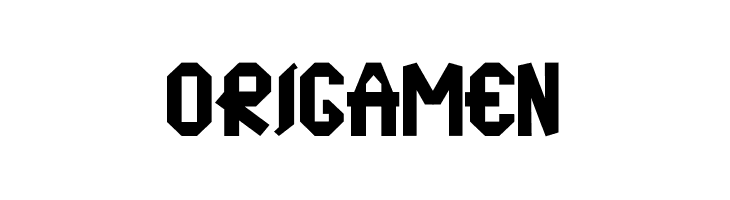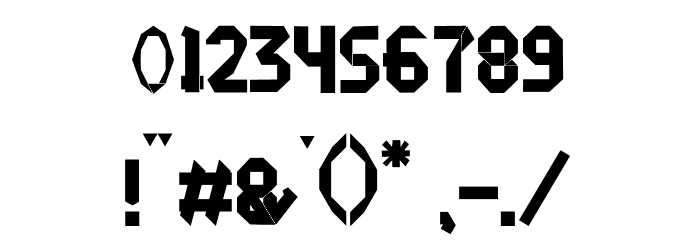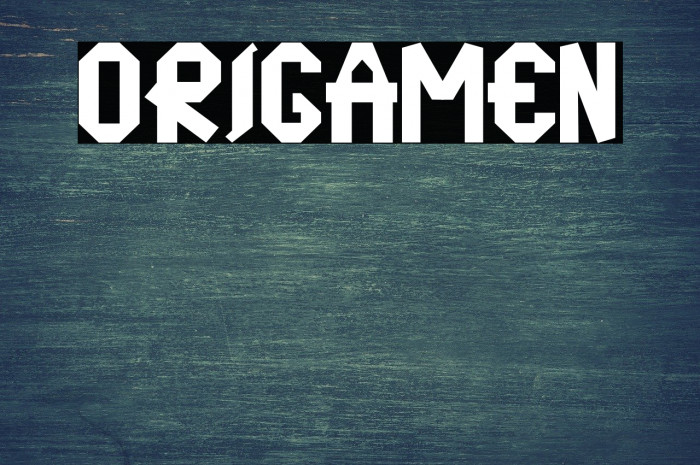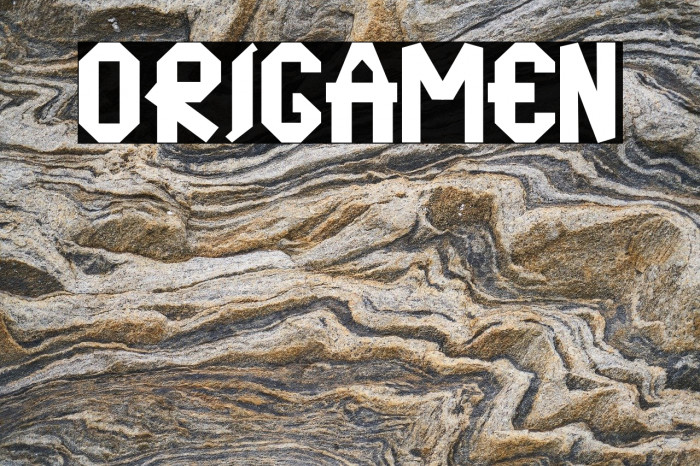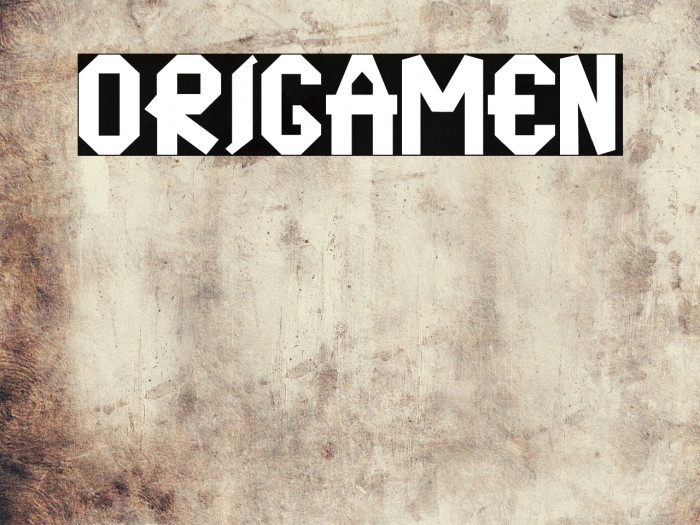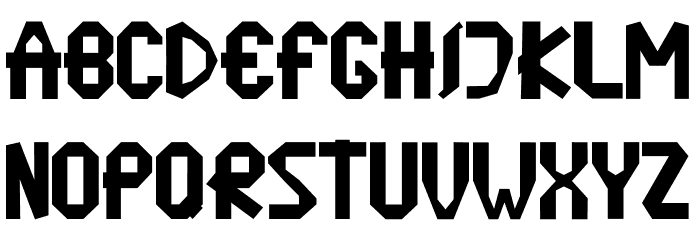
origamen Font
This font features a bold, geometric style with sharp, angular edges reminiscent of origami folds. The characters are constructed with a series of straight lines and sharp angles, giving it a modern and edgy appearance. The uppercase and lowercase letters maintain a consistent style, with a strong emphasis on symmetry and structure. The numerals and special characters follow the same design principles, ensuring a cohesive look across all glyphs. This font's unique style makes it stand out, offering a distinctive visual impact that is both artistic and contemporary.
A bold, geometric font with sharp, angular edges inspired by origami.
• Proposed Projects: Ideal for modern branding, poster design, album covers, and any project seeking a bold, artistic statement.
• Category: Decorative/Display
• Overall Style: Modern
• Use Case: Logos, Headlines, Posters